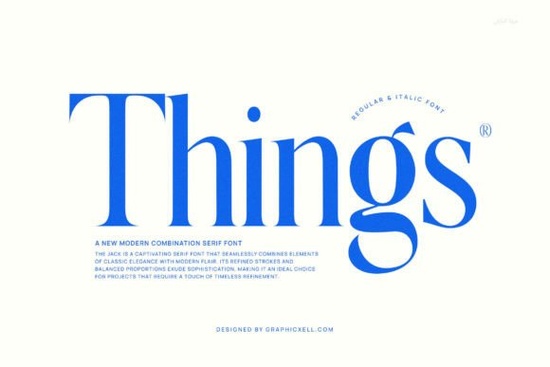
Looking for a serif typeface that feels both classic and current? Things Font is a modern serif typeface designed with clean letterforms, balanced proportions, and refined strokes. It sits right at the intersection of timeless elegance and contemporary style, making it a solid choice for designers, print-on-demand sellers, and small business owners who want their text to look polished without feeling outdated.
The font's simple structure gives it a high level of readability, which matters a lot when you're working on layouts where the text needs to carry weight think magazine spreads, product packaging, or branded stationery. Below, we'll break down what makes this typeface worth considering and how you can put it to work in your next project.
What Makes Things Serif Font Stand Out From Other Serifs?
There are thousands of serif fonts available today, so what makes this one different? A few things stand out:
- Refined strokes The letterforms are carefully crafted with smooth, consistent curves. There are no awkward bumps or uneven edges.
- Balanced proportions Each character sits well next to the others, creating a natural rhythm in body text and headlines alike.
- Modern flair While it draws from traditional serif design, it doesn't look stuffy or overly formal. There's a freshness to it.
This combination means you get a font that works well in both professional and creative contexts. If you've been exploring different serif font styles, Things Font fits neatly into the category of typefaces that feel elevated but still approachable.
Who Should Use This Font?
Things Serif Font works well for a surprisingly wide range of people and projects. Here's a quick look at who might benefit most:
- Graphic designers Whether you're building brand identities, designing editorial layouts, or creating social media graphics, this font gives you versatility.
- Print-on-demand sellers T-shirt quotes, mug designs, and poster text all benefit from a clean, readable serif.
- Small business owners Need a font for menus, business cards, or packaging? A well-designed serif like this one adds a layer of professionalism.
- Crafters and hobbyists If you make greeting cards, invitations, or scrapbook pages, this font brings a refined touch without being hard to read.
What Types of Projects Work Best With Things Font?
Because of its readability and balanced design, this font performs well in several specific use cases:
- Magazines and journals The clean letterforms hold up at both large and small sizes, which is exactly what editorial design demands.
- Product design Labels, tags, and packaging all benefit from a serif that communicates quality.
- Wedding and event invitations The elegant strokes give invitations a classic, sophisticated look.
- Website headers and hero text When paired with a simple sans-serif body font, it creates a strong visual hierarchy.
- Brand logos and wordmarks Its distinctive character shapes help logos feel memorable without being overly decorative.
How Does It Compare to Other Serif Fonts on Creative Fabrica?
Creative Fabrica has a large library of serif typefaces, and it's worth knowing how Things Font stacks up. Compared to more decorative serifs, it's cleaner and more versatile. Compared to ultra-minimal serifs, it has more personality thanks to its subtle design details.
If you're browsing options, you might also want to check out other serif fonts available on the platform to see how they compare in style and feel. Having a few serif fonts in your toolkit means you're always prepared, no matter what kind of project lands on your desk.
Tips for Getting the Most Out of Things Serif Font
Here are a few practical tips to help you use this typeface effectively:
- Pair it with a clean sans-serif for body text. This creates contrast and keeps your layouts easy to scan.
- Use it at larger sizes for headlines and titles to let the elegant details really show.
- Stick to shorter text blocks if you're using it at small sizes, since serif fonts with refined strokes can lose clarity in dense paragraphs.
- Test it in both print and digital previews before finalizing. A font can look different on screen versus on paper.